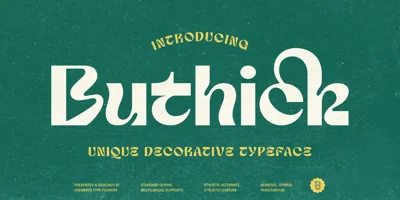
Buthick Font
This bold and impactful typeface is perfect for sports branding, fitness centers, outdoor adventure companies, extreme sports logos, energy drink packaging, athletic apparel, gym signage, motivational posters, action movie titles, gaming interfaces, streetwear brands, hip-hop album covers, urban fashion labels, and high-impact advertising campaigns. The font's powerful design makes it ideal for projects that demand attention and convey strength, energy, and dynamic movement.
Buthick Font is exciting because it combines raw power with refined craftsmanship through its thick, commanding letterforms and aggressive character structure. The font's bold presence creates an immediate visual impact that demands attention, making it perfect for brands that want to project confidence, determination, and unstoppable energy. Its distinctive personality ensures memorable brand recognition while maintaining excellent legibility even at smaller sizes.
The Buthick Font family includes multiple weight variations: Regular, Medium, Bold, Extra Bold, and Black, each available in standard and oblique styles. Special editions feature outlined, shadowed, and textured variants that enhance the font's dramatic appeal, providing designers with powerful tools for creating eye-catching headlines and impactful brand identities.